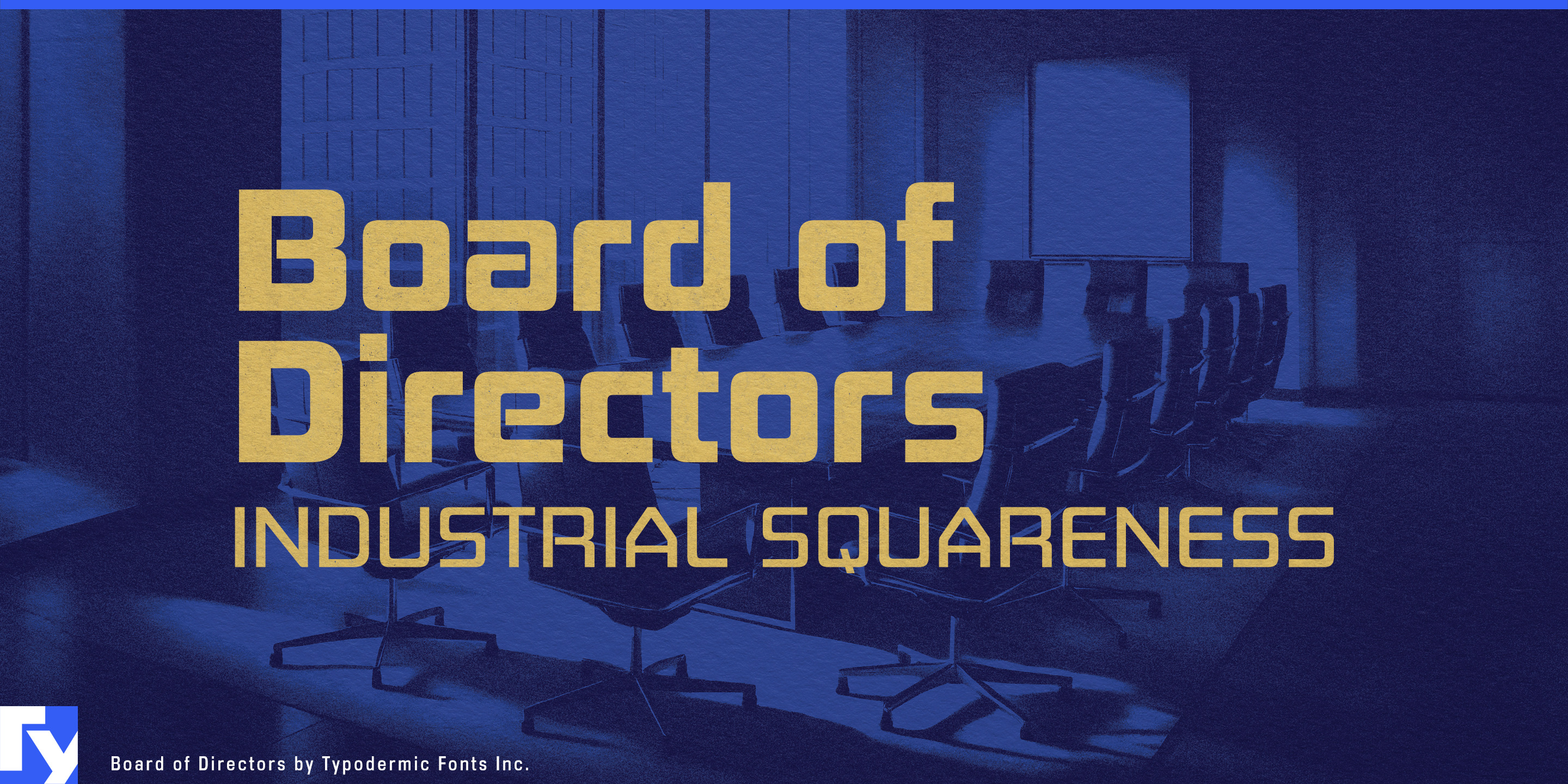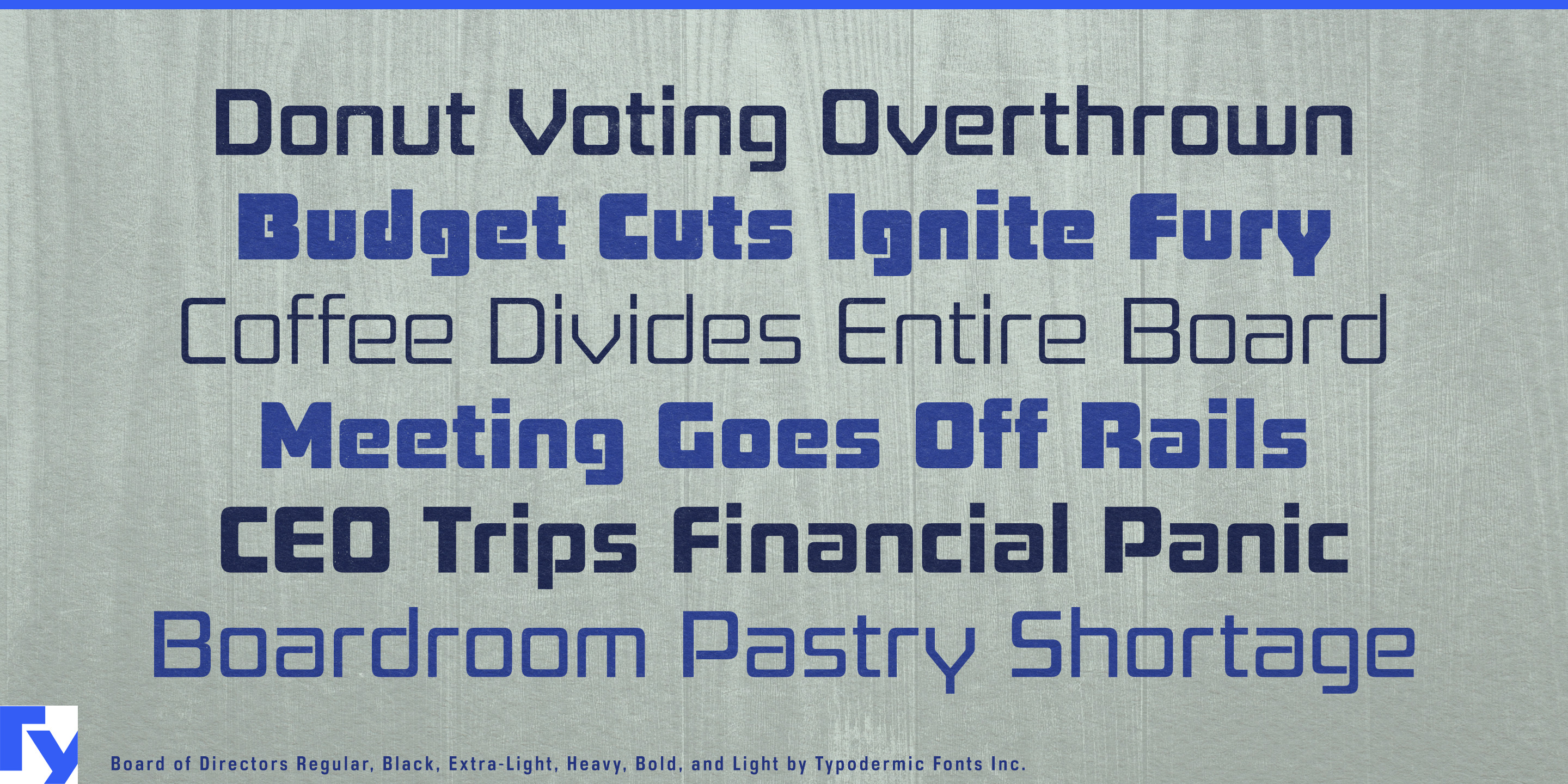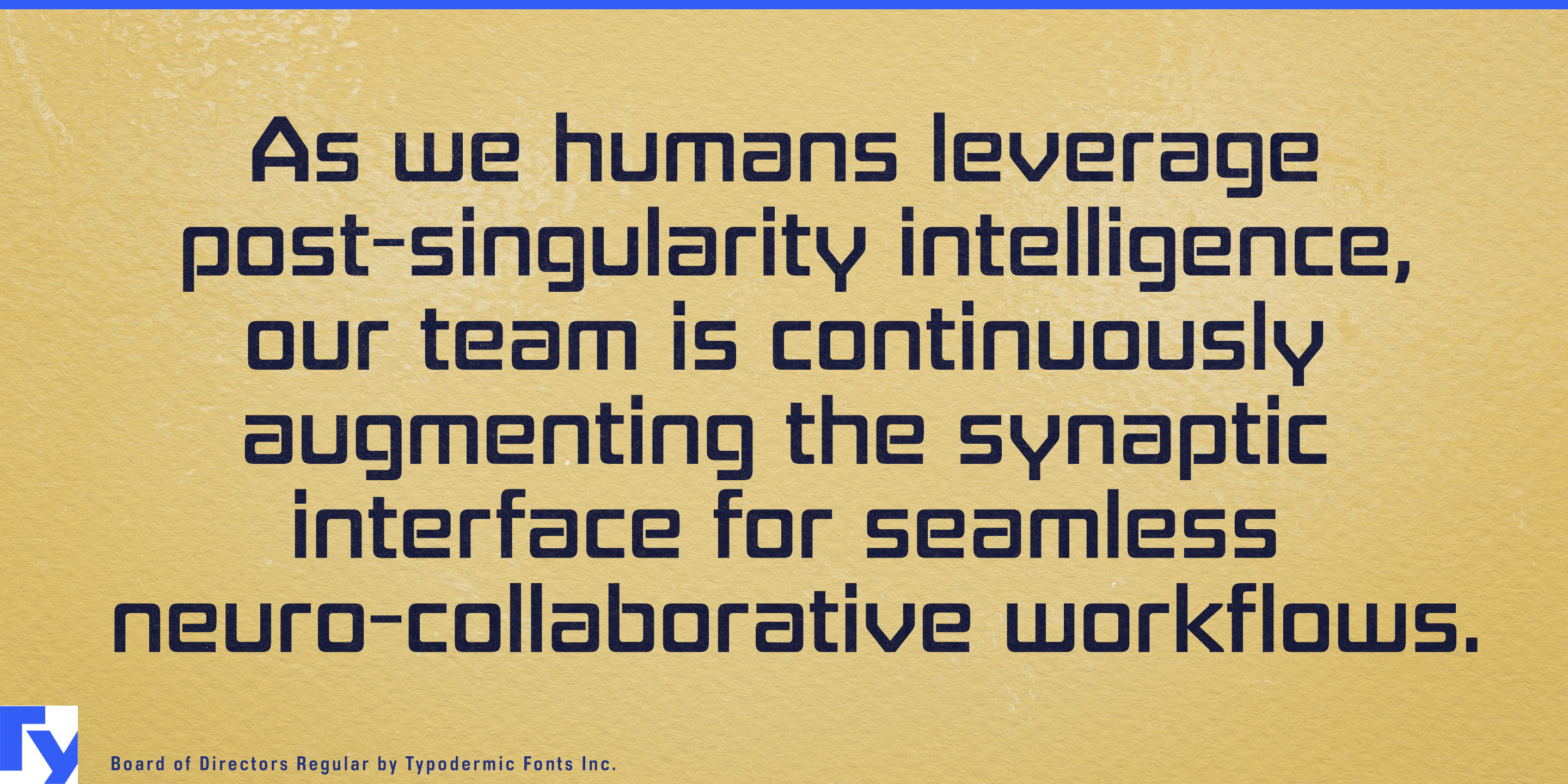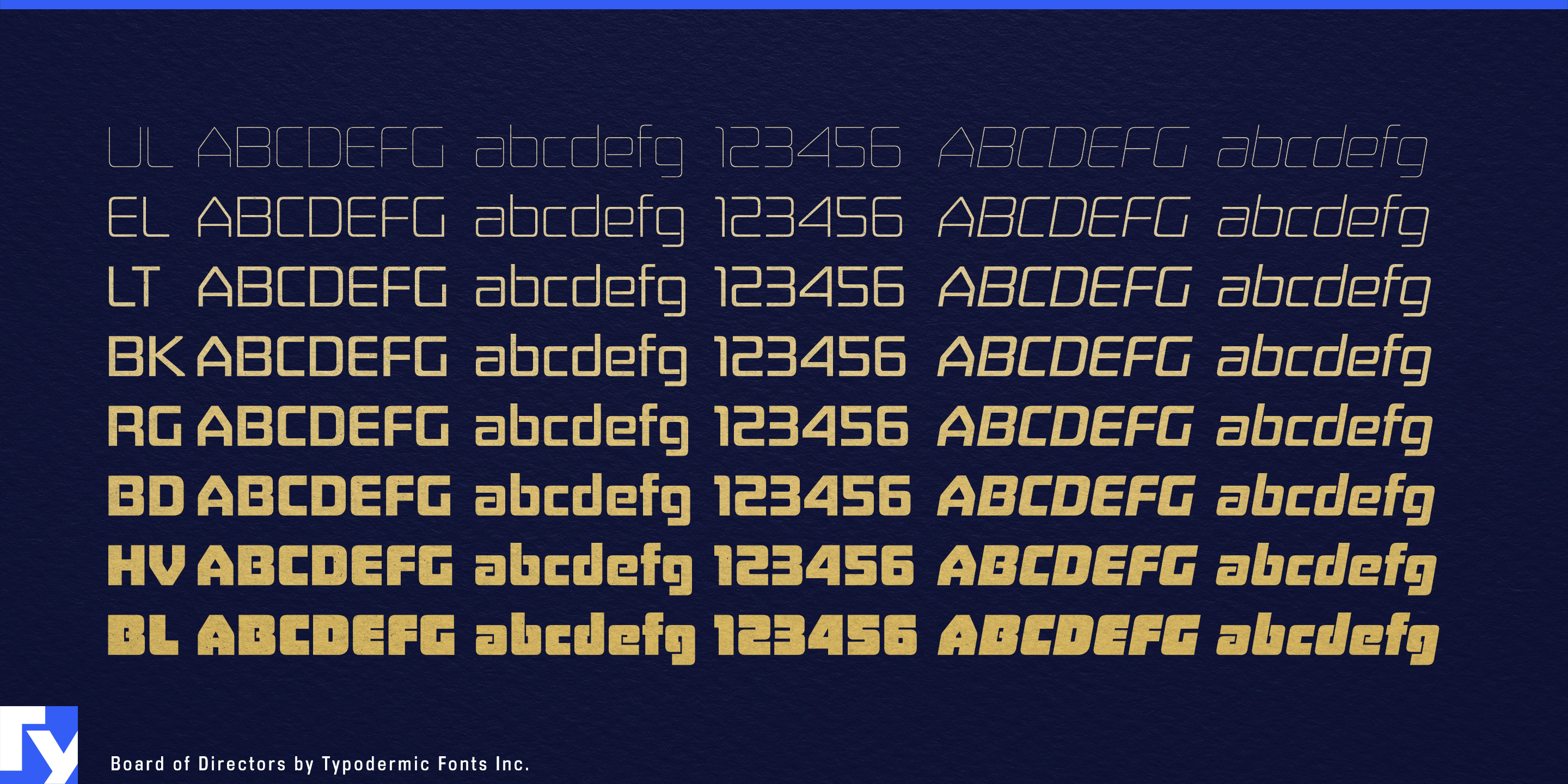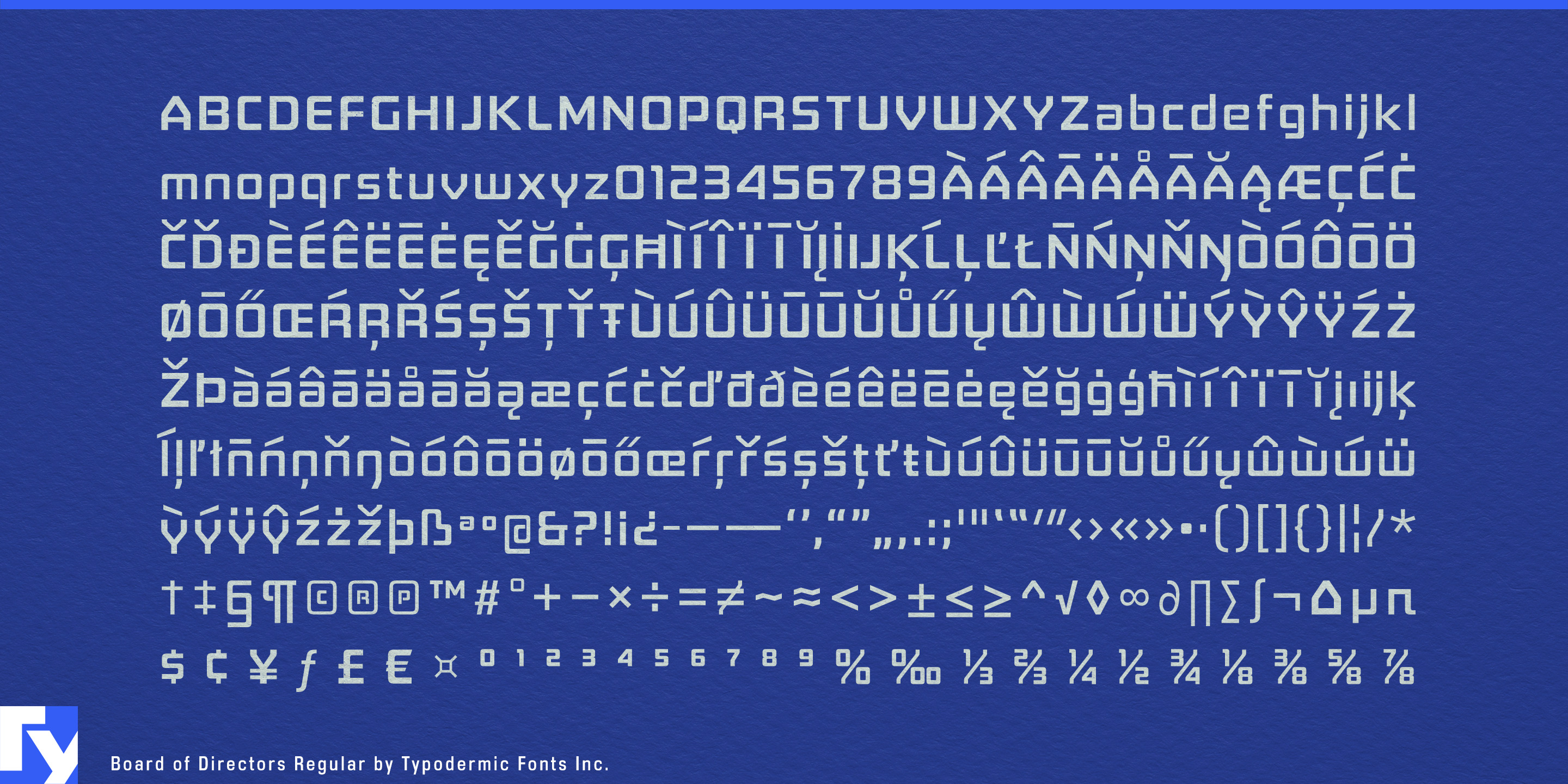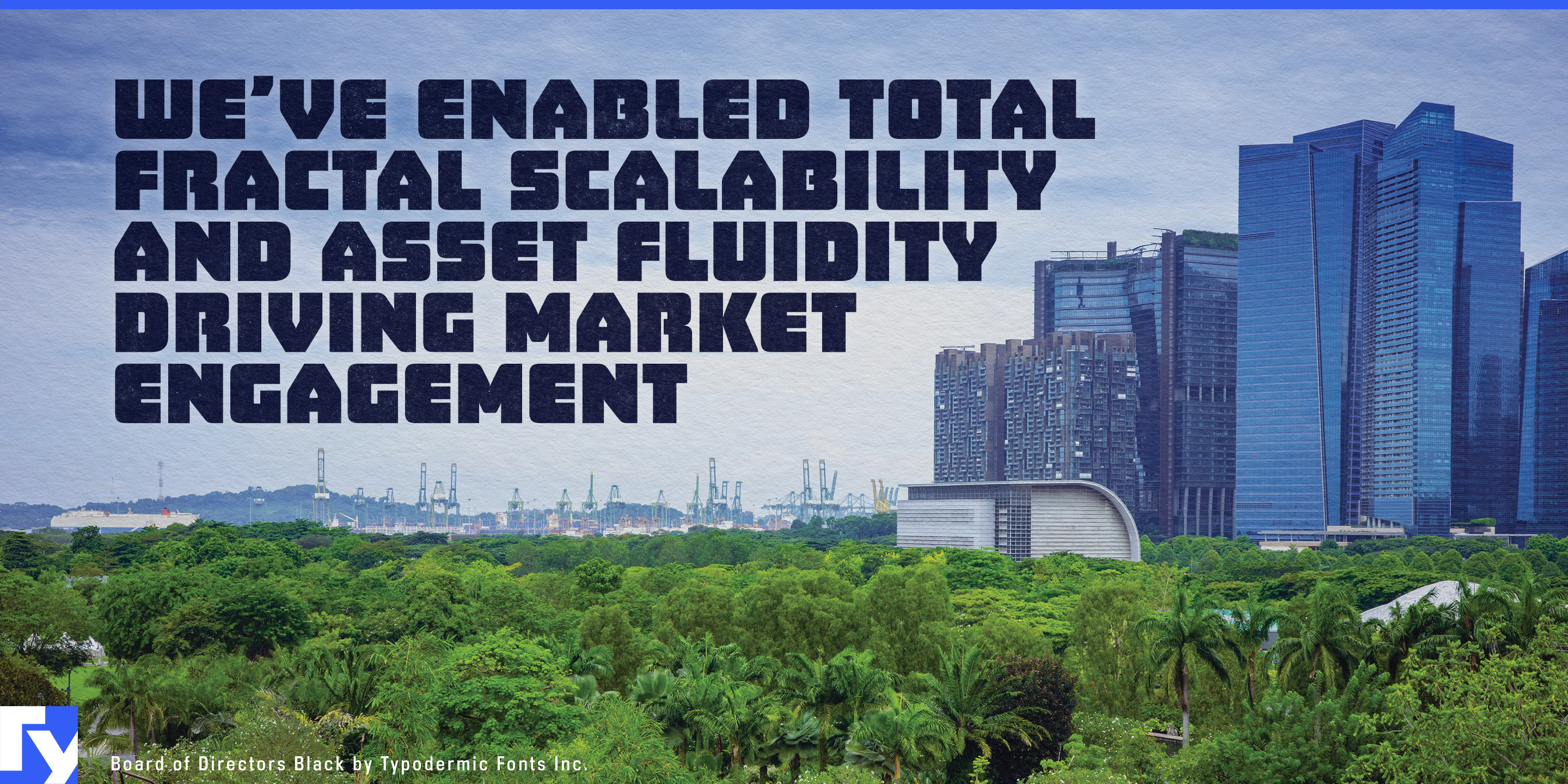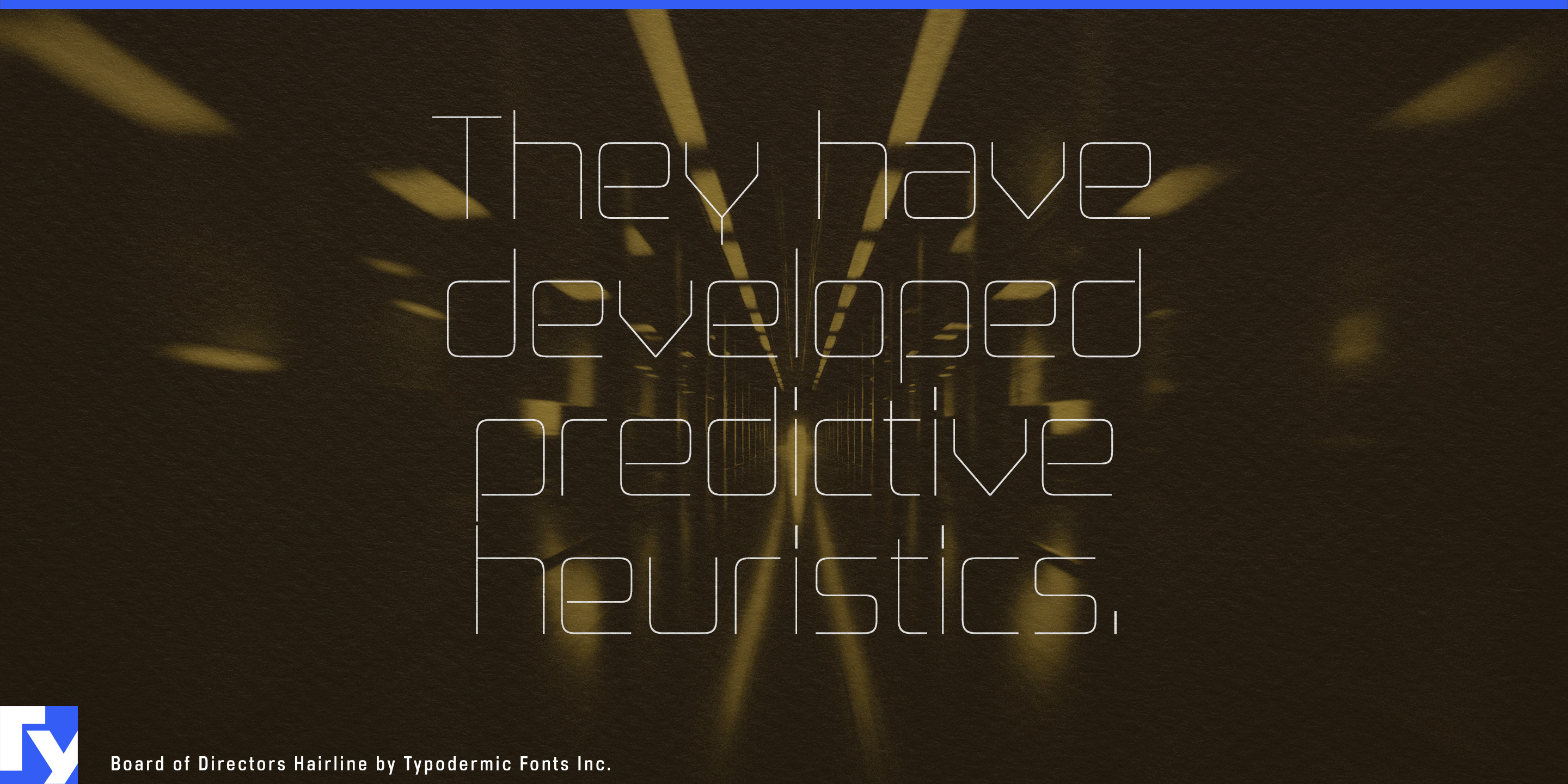
Board of Directors
Corporate typography often gets trapped between two extremes: dependable sans serifs that make every presentation look interchangeable, and futuristic display faces that work for a logo but struggle once the project expands. Board of Directors occupies the useful ground between them, combining square, engineered forms with enough range and clarity for a broader corporate system.
Its geometry draws on 1970s hi-tech logos and the efficient forms of early plotter and dot-matrix type. A large x-height gives the lowercase substantial presence, while the peaked, flat-sided A and softened diagonals keep the rectangular construction from becoming rigid. The family spans light technical headings through dense, heavy statements, with matching italics extending the hierarchy.
The name makes one application particularly appropriate: Board of Directors works well around an actual board of directors. Executive briefing decks, quarterly business reviews, strategy presentations, annual reports, shareholder meetings, investor presentations, and capital-markets-day graphics all need a display layer that separates major decisions, figures, and conclusions from the quieter typography carrying the details. Heavy styles can take on titles such as 2030 STRATEGY or GRID INVESTMENT while lighter styles handle chart headings and callouts.
That role suits the increasingly technical subjects moving into corporate communication. Infrastructure funds, energy-transition investors, data-center operators, semiconductor manufacturers, robotics companies, advanced manufacturing groups, EV-charging networks, and grid-storage businesses need to explain complex physical systems to boards, customers, regulators, and investors. Board of Directors can move between investment-thesis decks, portfolio-company presentations, product launches, trade-show graphics, technical brochures, and large statements about capacity, deployment, or expansion.
Commercial insurance and risk offer another useful setting. Cyber insurance, industrial property, construction risk, marine and logistics coverage, equipment insurance, and reinsurance increasingly deal with interconnected infrastructure, automation, supply chains, climate exposure, and digital systems. Board of Directors gives risk reports, underwriting presentations, conference graphics, and analytical dashboards a technical display voice without intruding on the detailed information.
The same balance works for operations consulting and enterprise systems tied to the physical world: supply-chain planning, fleet management, factory automation, building controls, industrial cybersecurity, and digital-twin platforms. Board of Directors gives serious business communication an engineered visual layer that can travel from the boardroom presentation to the factory floor, investor meeting, trade-show wall, and technical report.